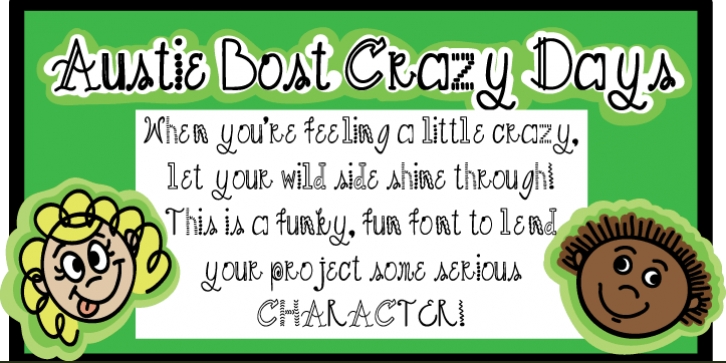
Austie Bost Crazy Days is a kids font published by Austie Bost Fonts.
My scrapbook font!  It’s perfect for giving a spunky feel to your projects, while not sacrificing legibility and usability!
Font Family: Austie Bost Crazy Days Regular